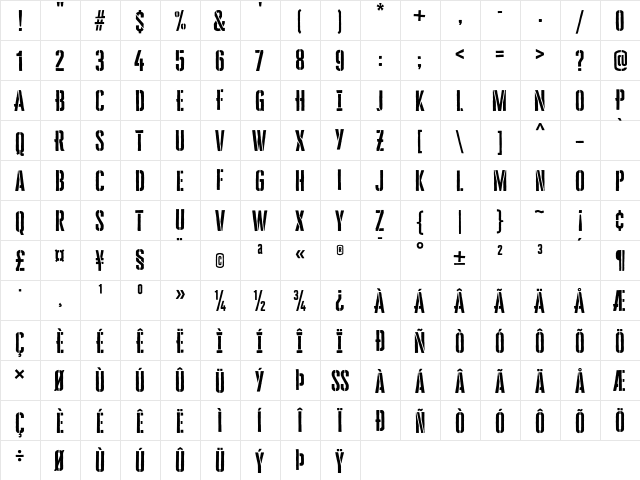
Cheddar Gothic Stencil Regular
| Foundry | Adam Ladd |
| Designer | Adam Ladd |
Design Context for Cheddar Gothic Stencil Typeface
Cheddar Gothic Stencil borrows the utilitarian aesthetic of stencil lettering, with its characteristic cutaways and no-frills construction lending an industrial edge.
A strong choice for packaging that needs edge, warehouse aesthetics, and rough-and-ready visual identities.
Pro Tip: Use Cheddar Gothic Stencil at large sizes on packaging, posters, or apparel where the stencil cutaways read clearly. Avoid small sizes where those gaps become visual noise.